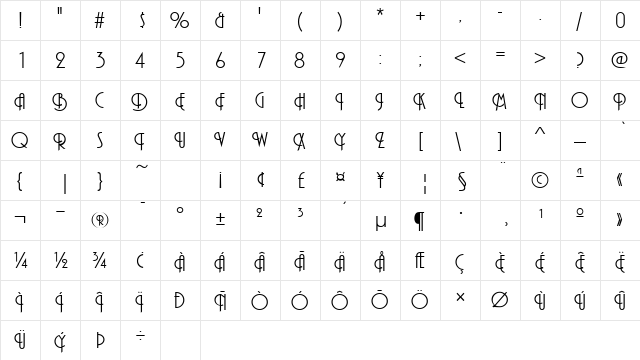
PiazzaInitials Regular
Design Context for PiazzaInitials Typeface
PiazzaInitials is a composed and adaptable typeface that performs quietly and consistently across a wide range of design contexts.
Pro Tip: Use PiazzaInitials in both headline and body roles to test its range before committing to a single application.